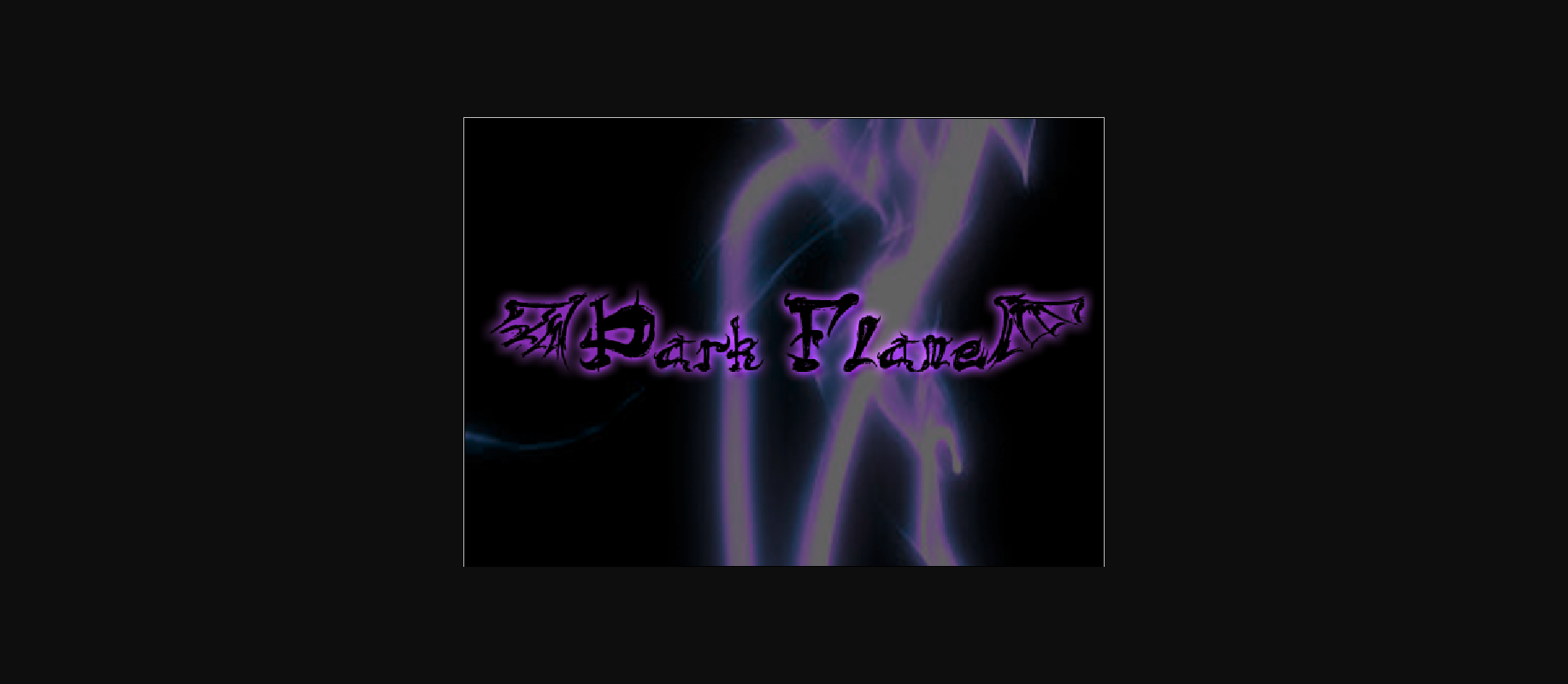
Dark Flame Font
About Dark Flame Font
The Dark Flame was inspired by Yuyu Hakusho.
It has an unique look which can be used for various designing needs..